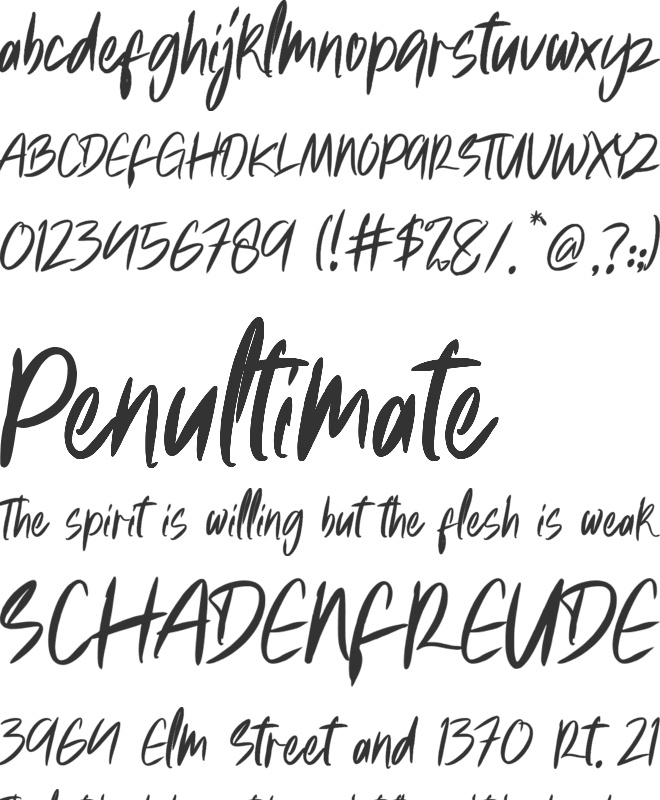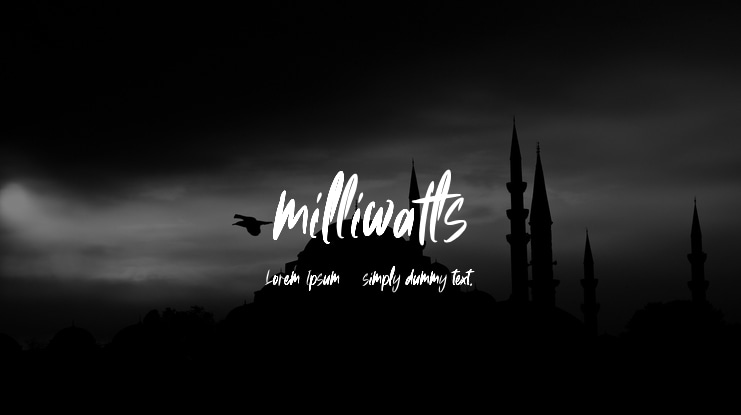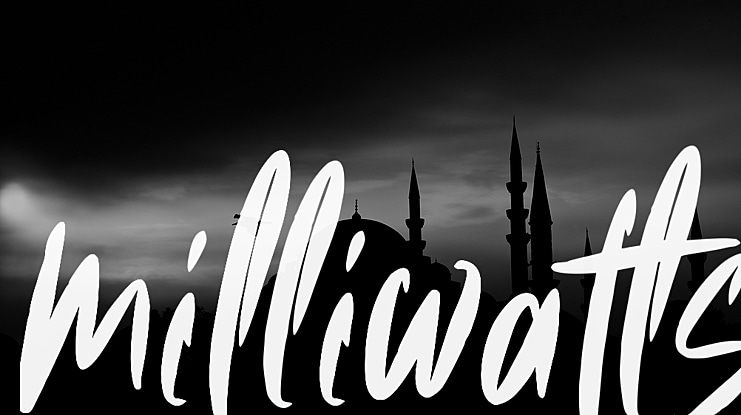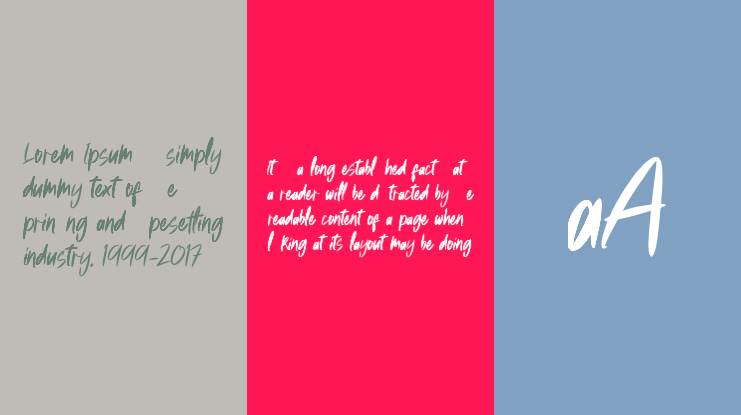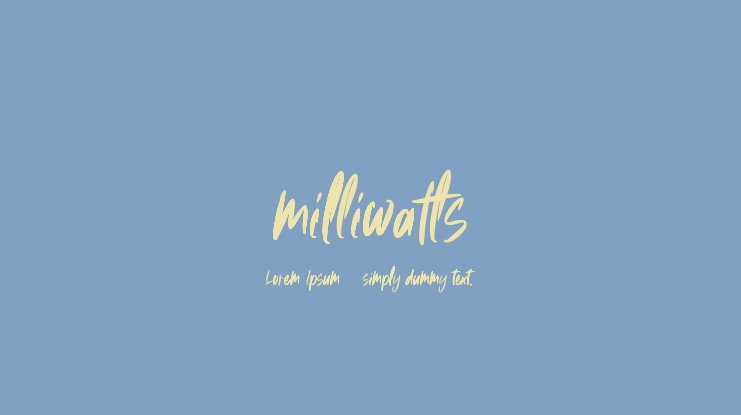
milliwatts Font
Milliwatts is an incredibly distinct, delicate and timeless brush signature handwritten font. It looks stunning on wedding invitations, thank you cards, quotes, greeting cards, logos, business cards and every other design which needs a handwritten touch.
Includes in uppercase, lowercase, standard numbers & punctuation, multilingual support.